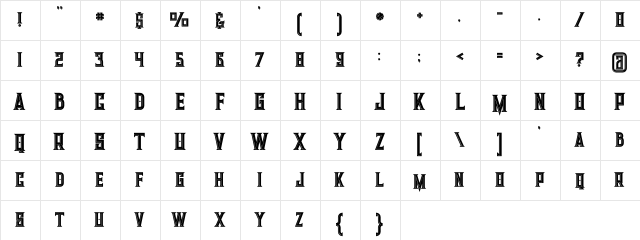
Giant Bold Inline Bold Inline
Design Context for Giant Bold Inline Typeface
Giant Bold Inline is built around its visual character rather than neutral utility — its distinctive forms are designed to make an impression at display sizes. Its bold stroke weight gives it real presence on the page.
Font Pairing: Pair with a clean neutral sans-serif for body copy to let Giant Bold Inline's character lead without overwhelming the composition.
Pro Tip: Use Giant Bold Inline exclusively at display sizes — it was designed to be seen, not read at length. Let a neutral companion handle body copy.